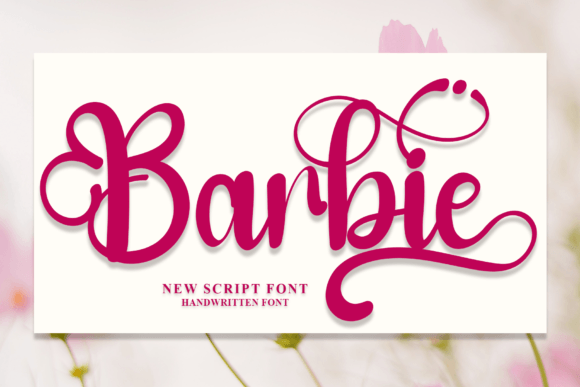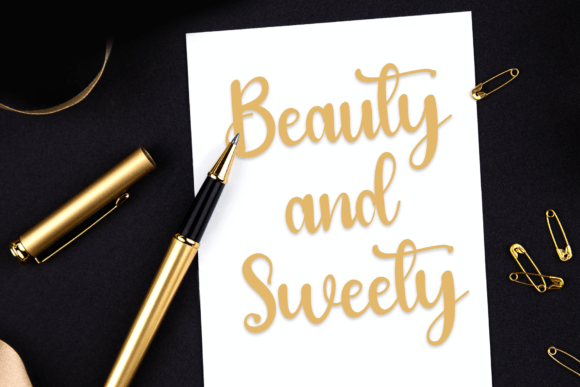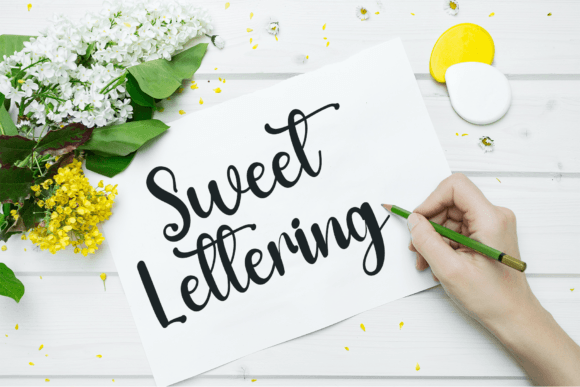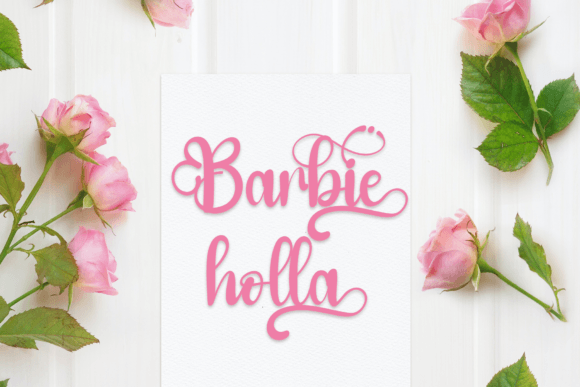
Barbie Font
Barbie is a stylish handwritten font with a contemporary atmosphere and impeccable form, inspired by a timeless classic calligraphy. Balanced and varied, this font was designed to enhance the beauty of your projects.This font is PUA encoded which means you can access all of the amazing glyphs and ligatures with ease!